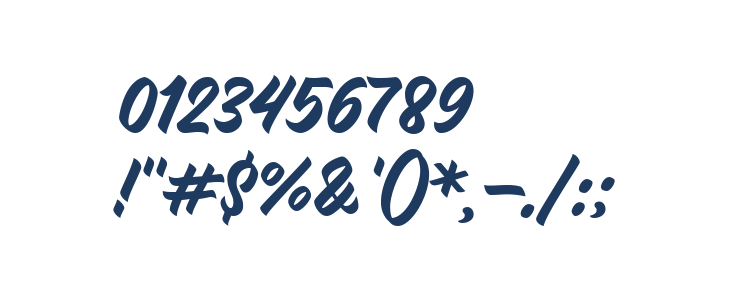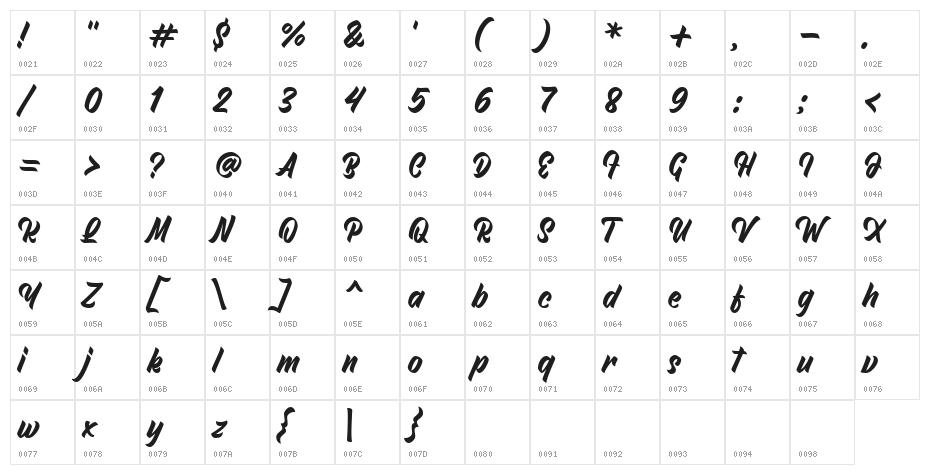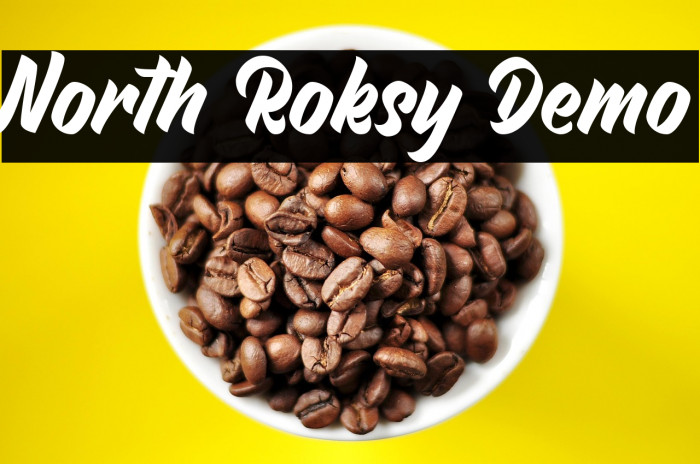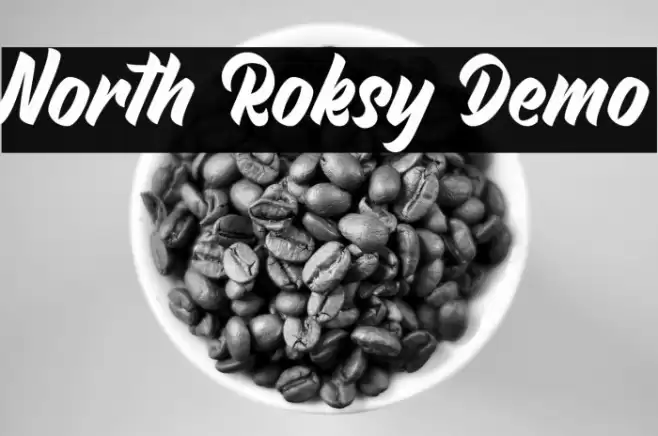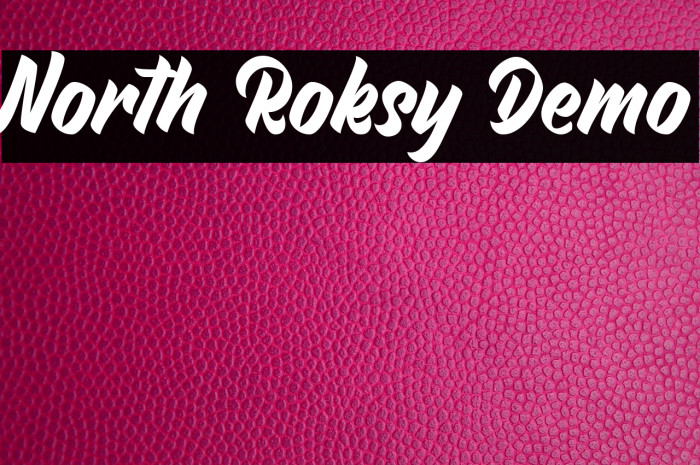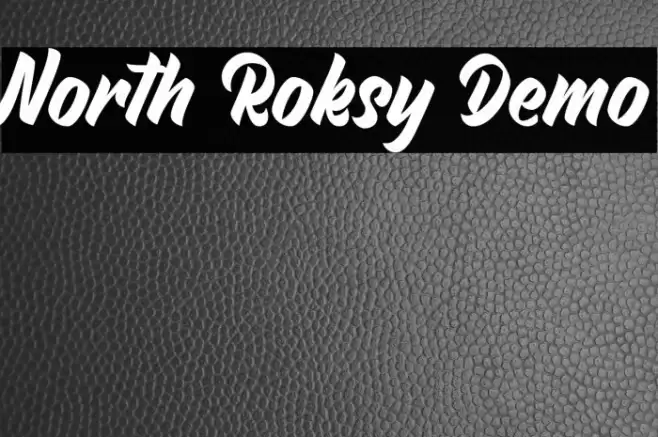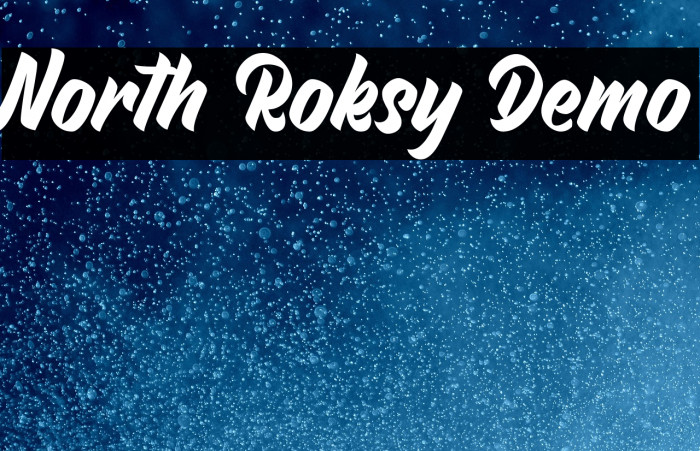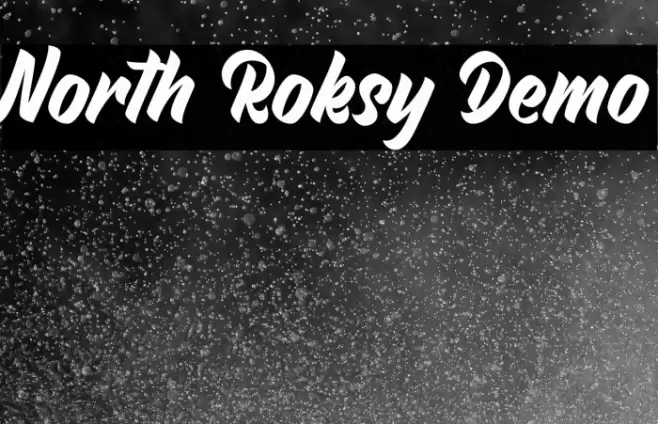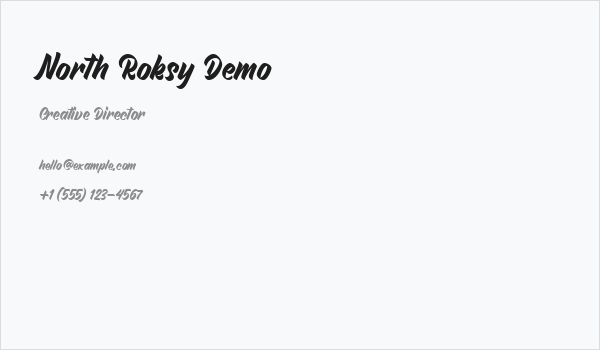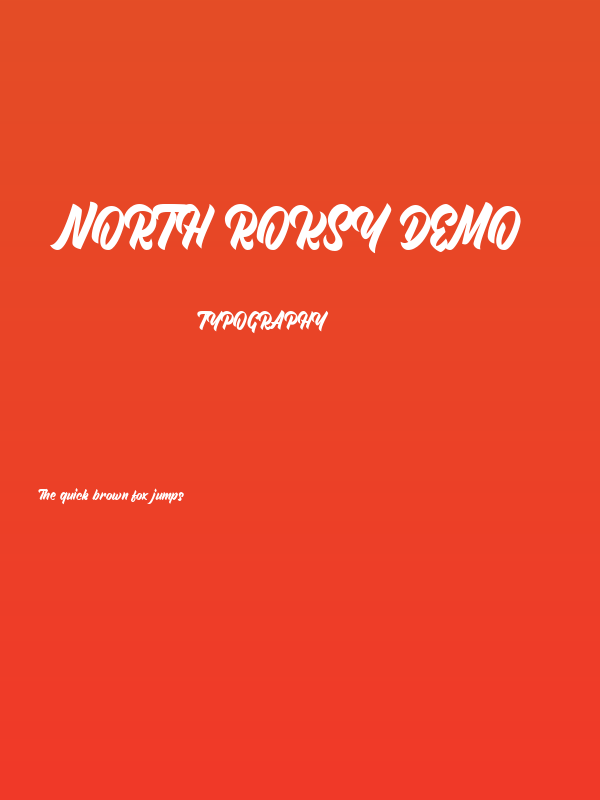
North Roksy Demo Font
North Roksy Demo Description
This font features a bold, script style with a dynamic and flowing appearance. The characters are connected, giving it a handwritten feel, yet they maintain a consistent thickness throughout. The uppercase letters are slightly larger and more pronounced, while the lowercase letters are more compact, enhancing the script's fluidity. The numbers and special characters follow the same stylistic cues, ensuring uniformity across all glyphs. Its bold strokes and slanted orientation add a sense of movement and energy, making it ideal for eye-catching designs.
| Proposed Projects | Ideal for branding, logos, invitations, and creative projects that require a personal touch. |